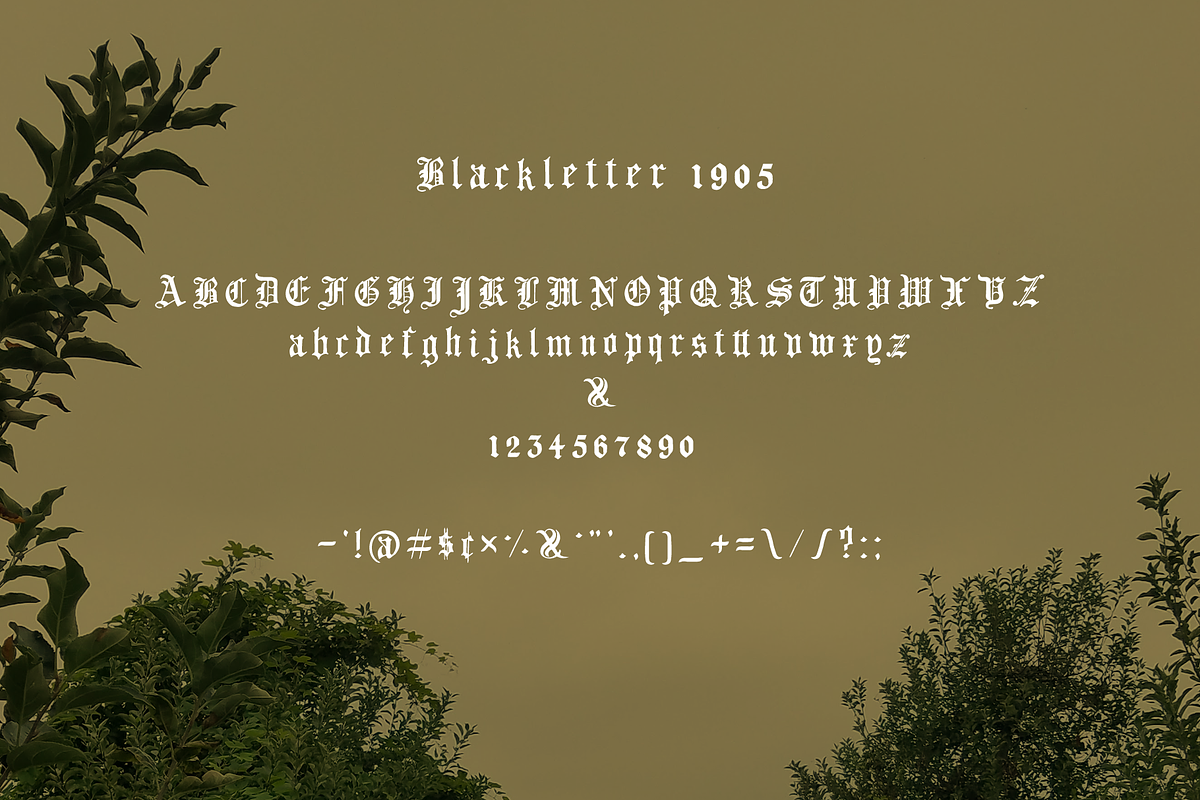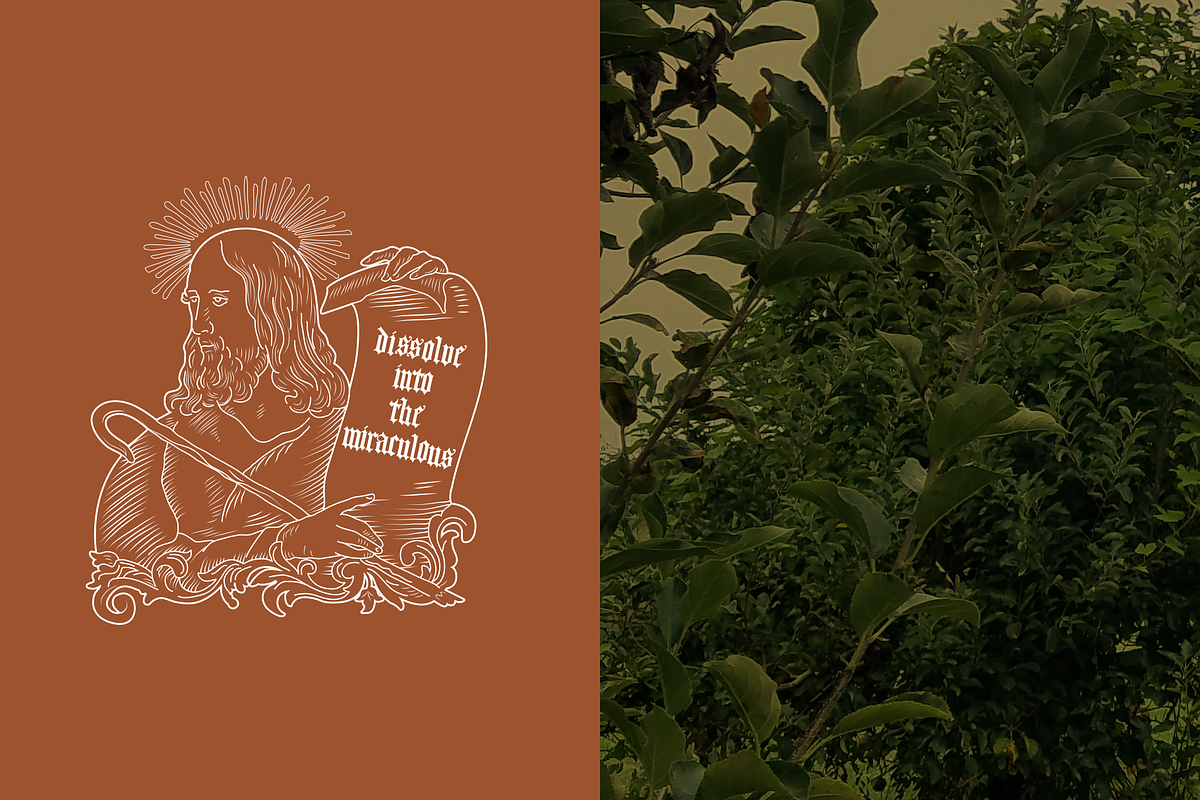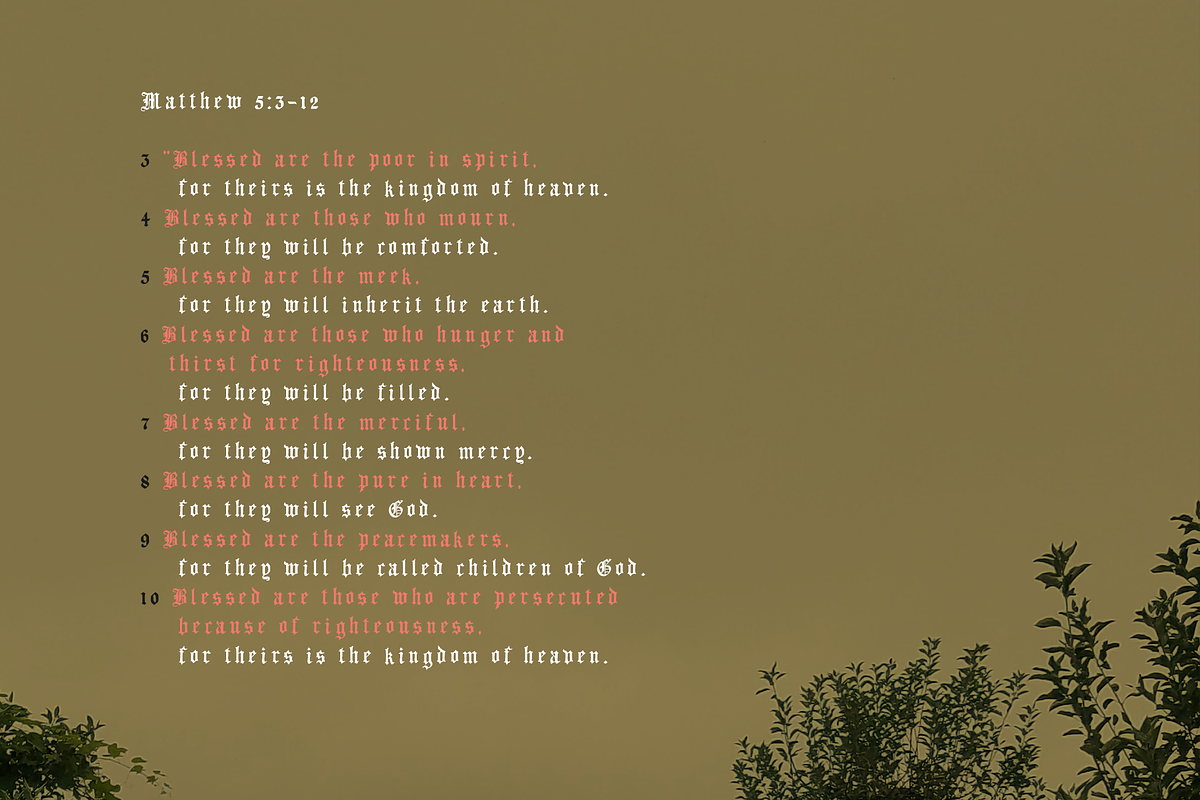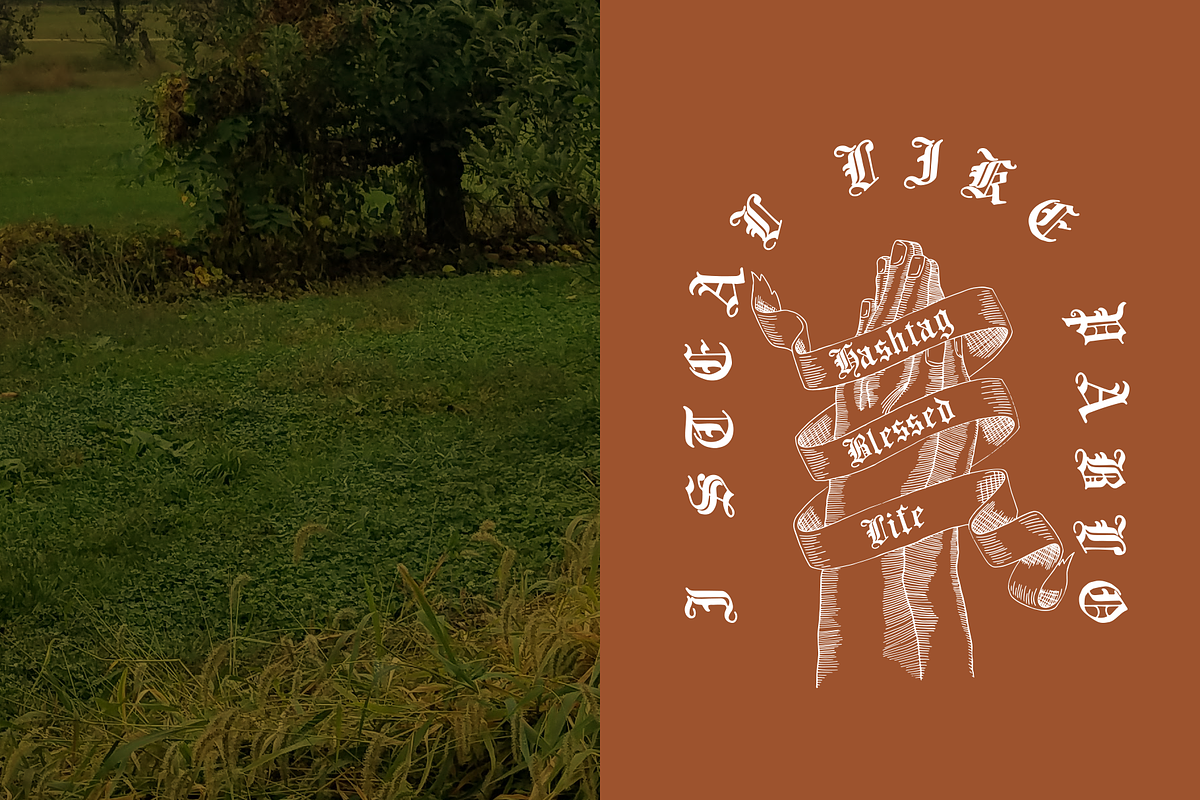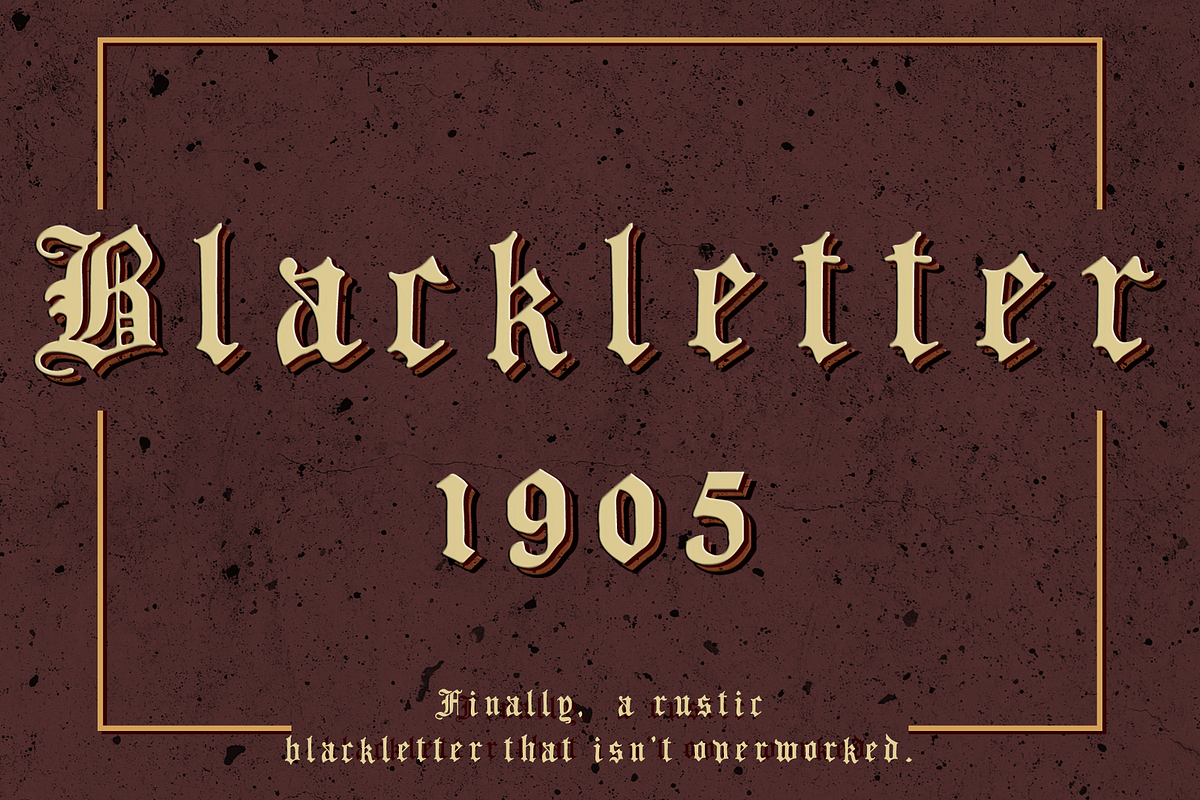
Blackletter 1905 Rustic Vintage Font
Blackletter 1905 is the second font in a series I'm archiving from an old architectural correspondence course book I found one fateful day while estate sale shopping with my wife.
I use this font in my work specifically when I'm looking for a blackletter that shys away from that overly-perfected look (the way, in my mind, blackletter is supposed to be - slightly janky).
I like to think of the tedious copying of passages of literature before the printing press, imagine making the last mark at the end of the passage, sore wrist and ink-stained fingers, and noticing that ONE letter is SLIGHTLY crooked, you're not gonna burn the whole page just for that. You wrap up the scroll and hope no one notices. This font is an homage to that moment.
Suggested use: Pablo Tee rip offs, church bulletins, pre-1600 literature book covers.